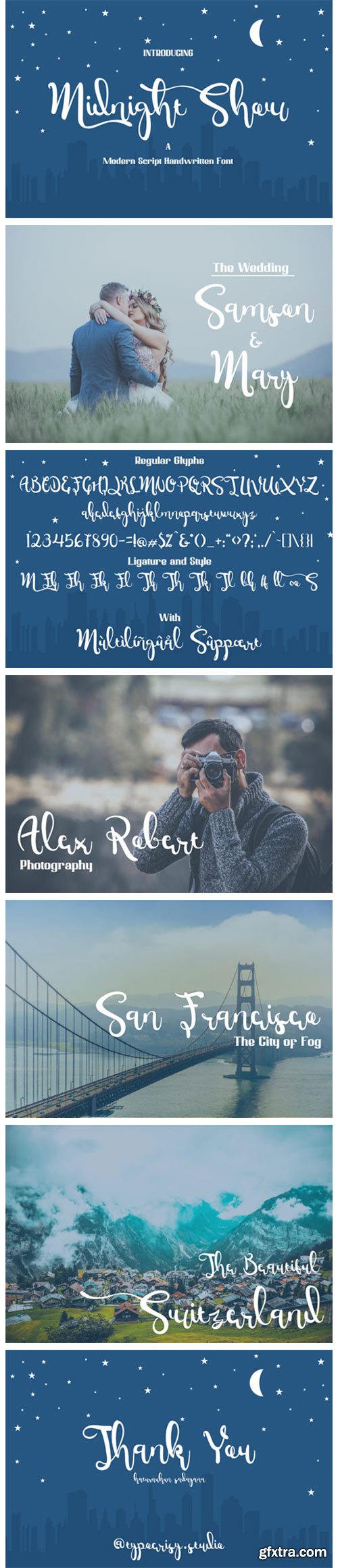
Midnight Show Font
Midnight Show is a sweet and delicate handwritten font. Dainty and joyful, this font will be ideal for writing wedding invitations, cards or any other design that may need a romantic, personalized touch!